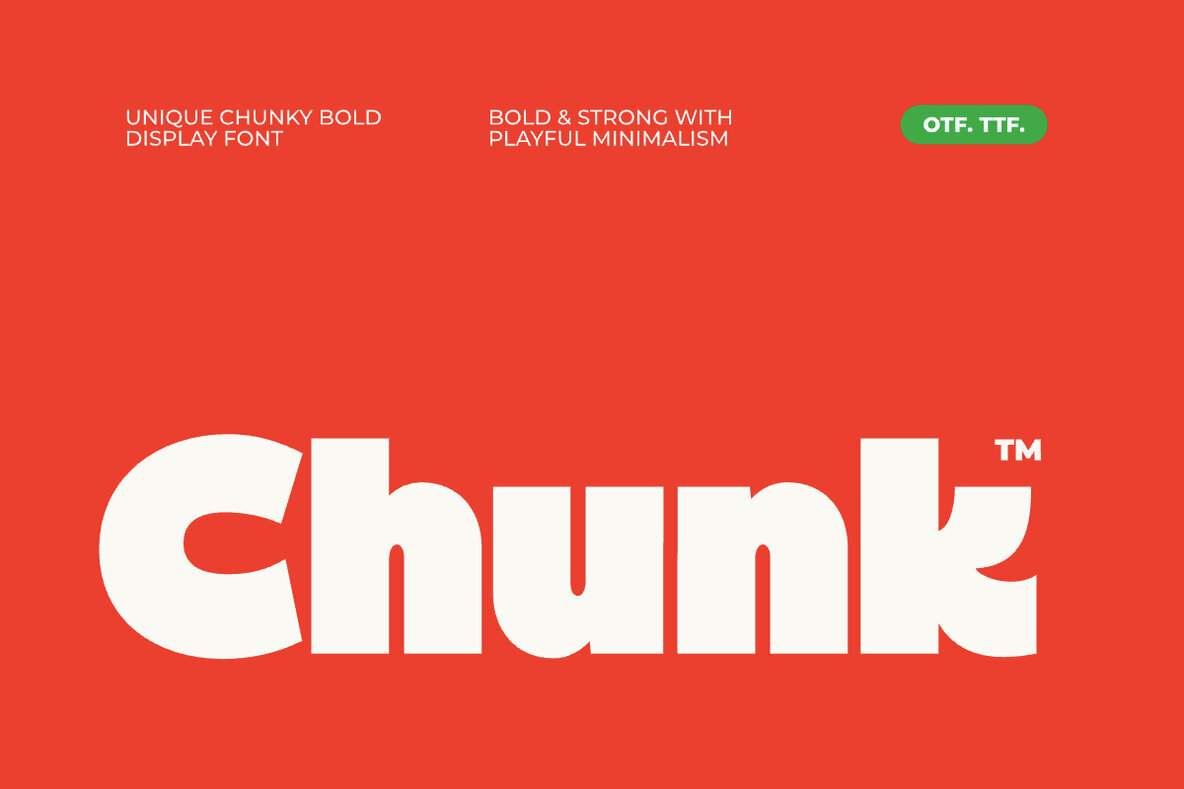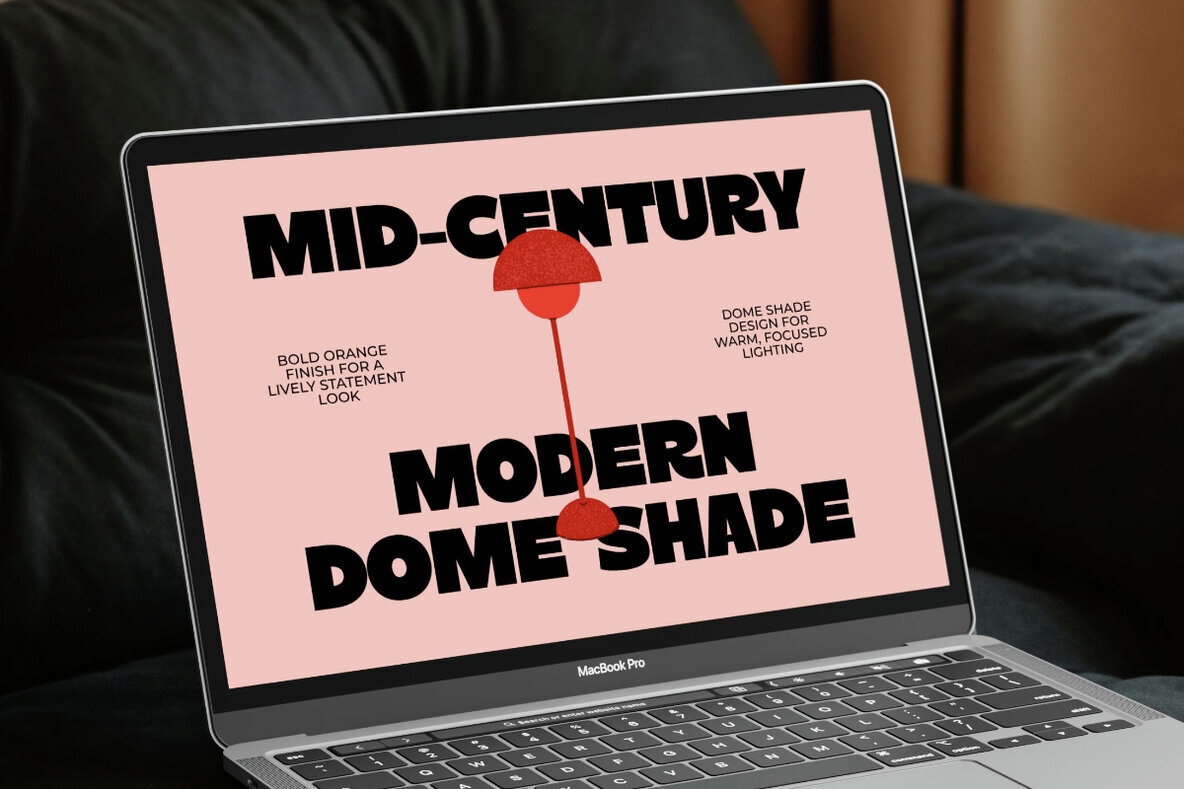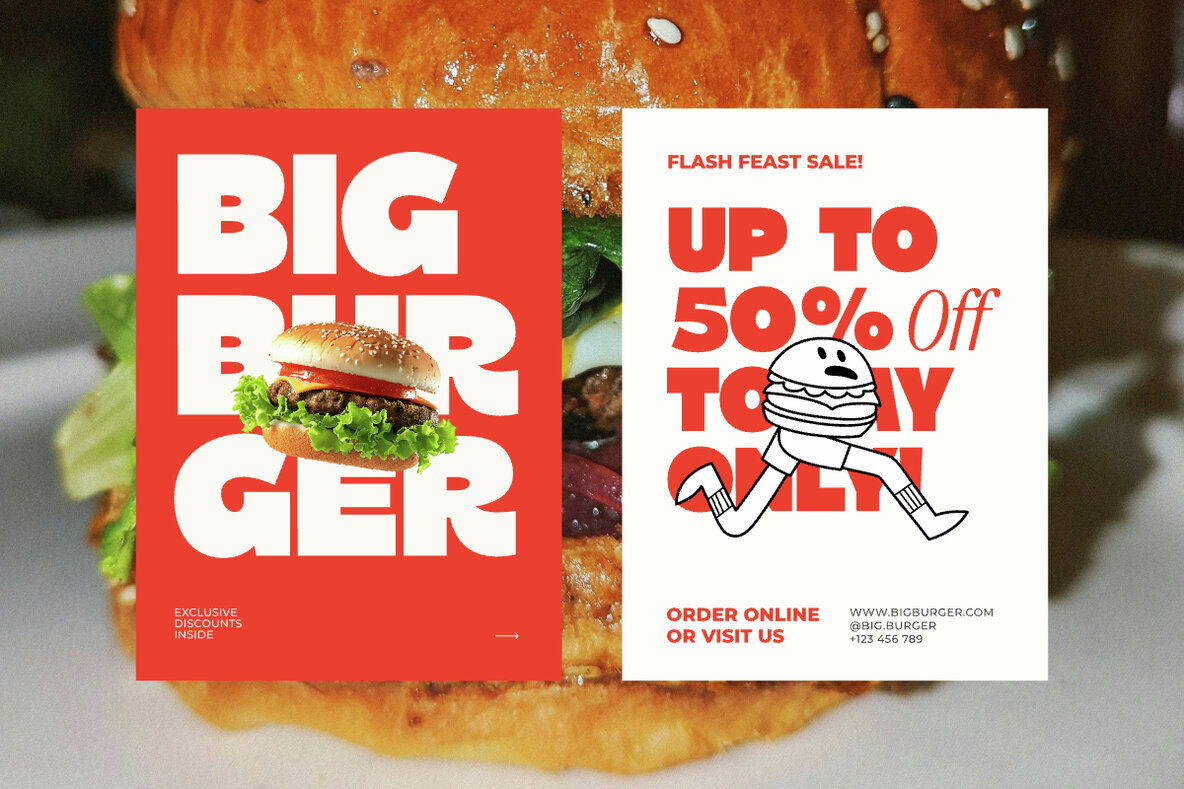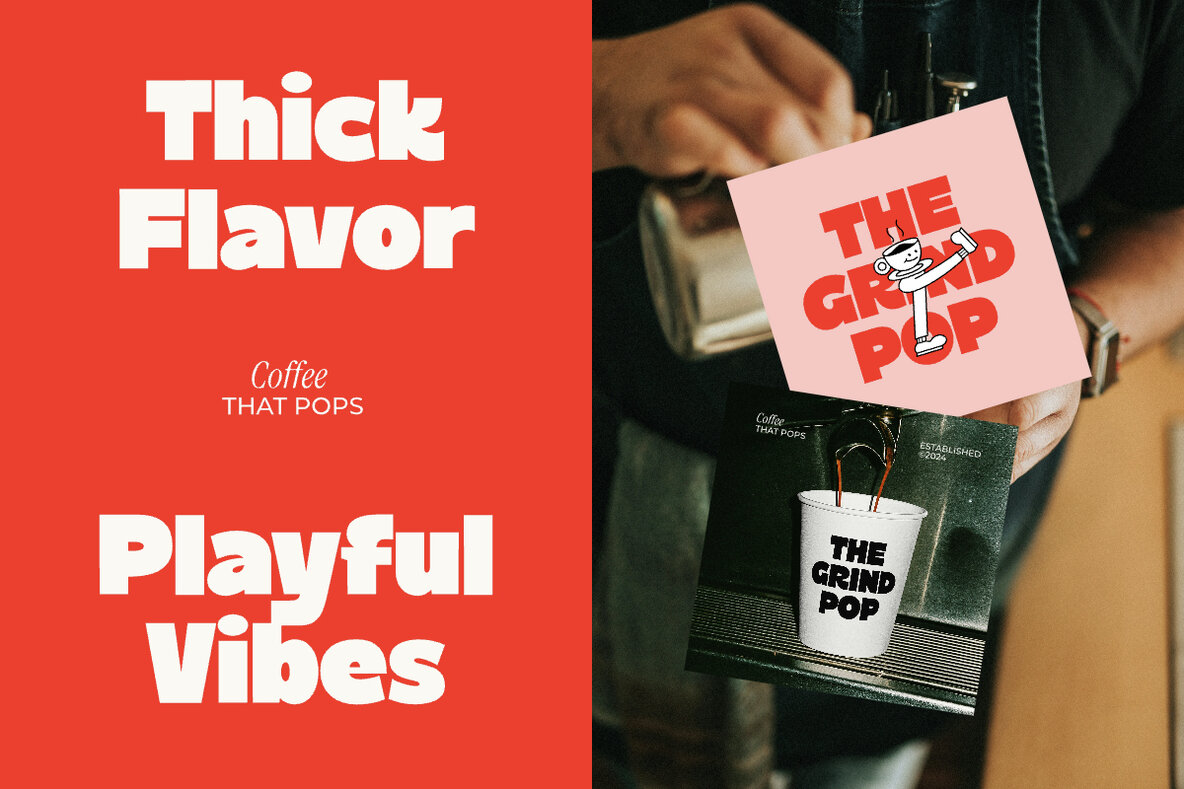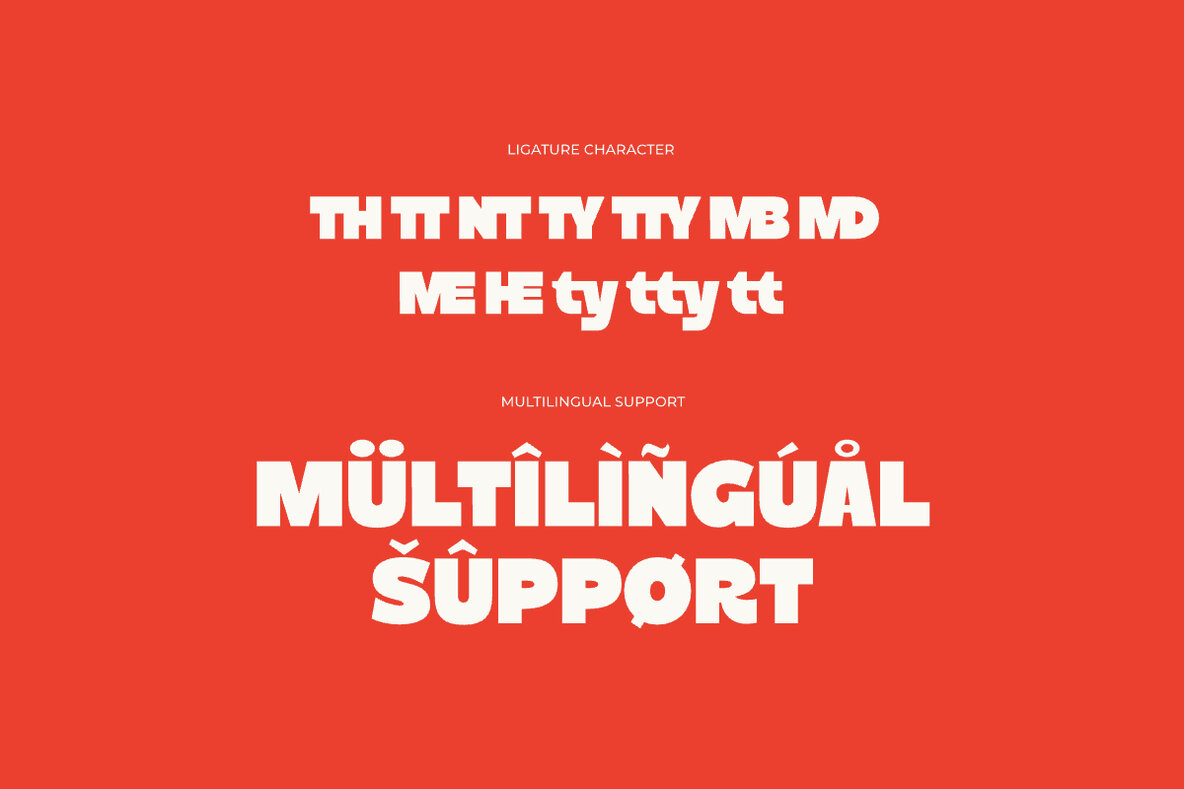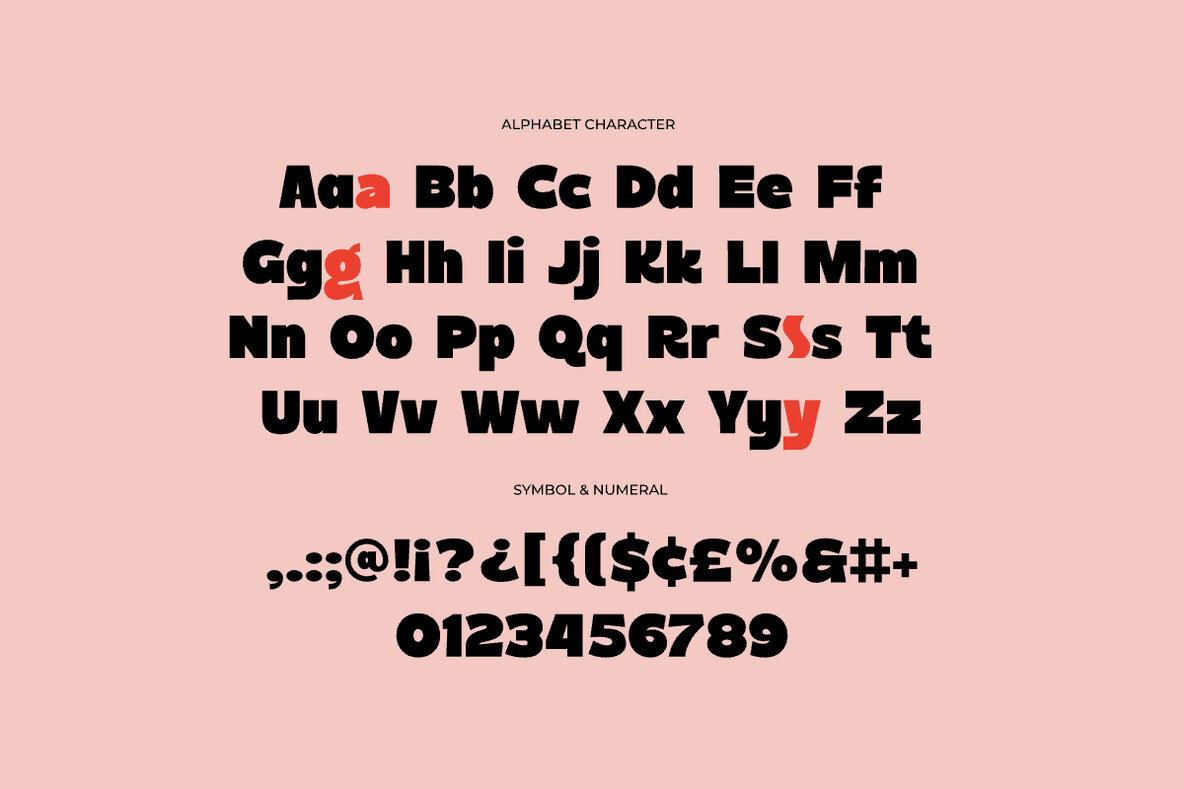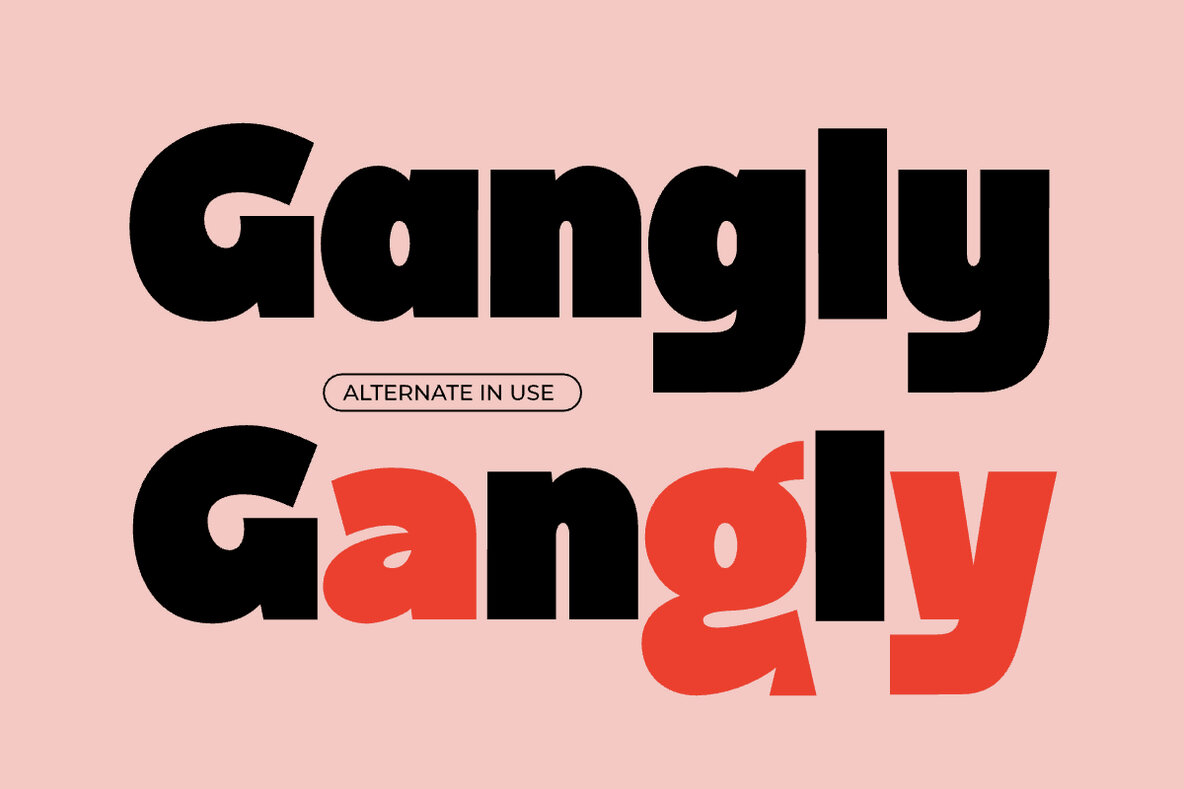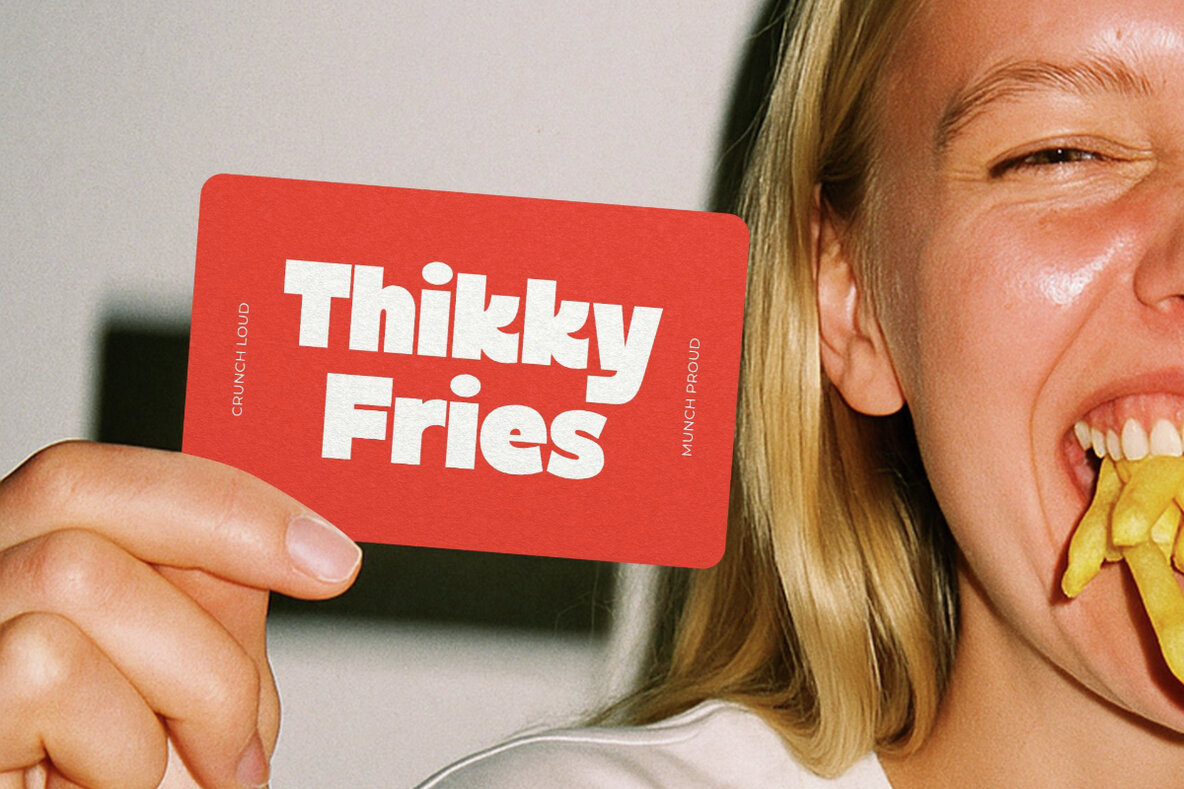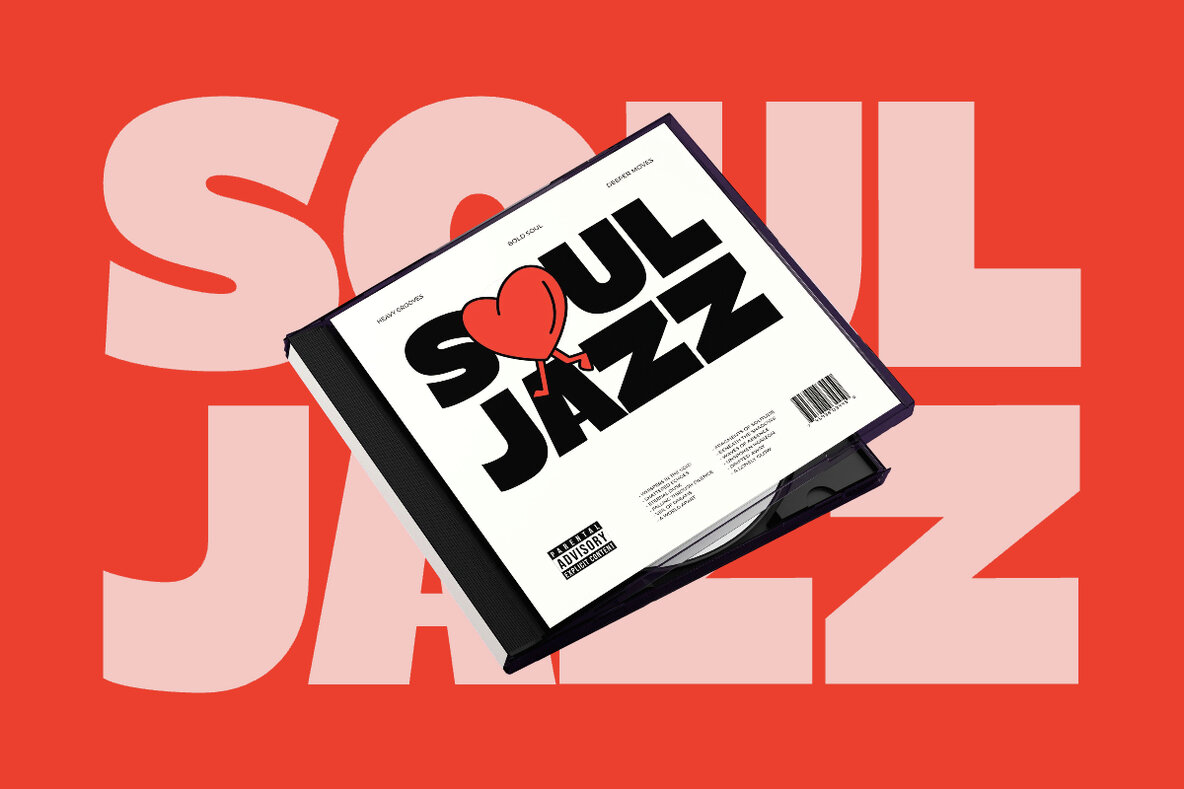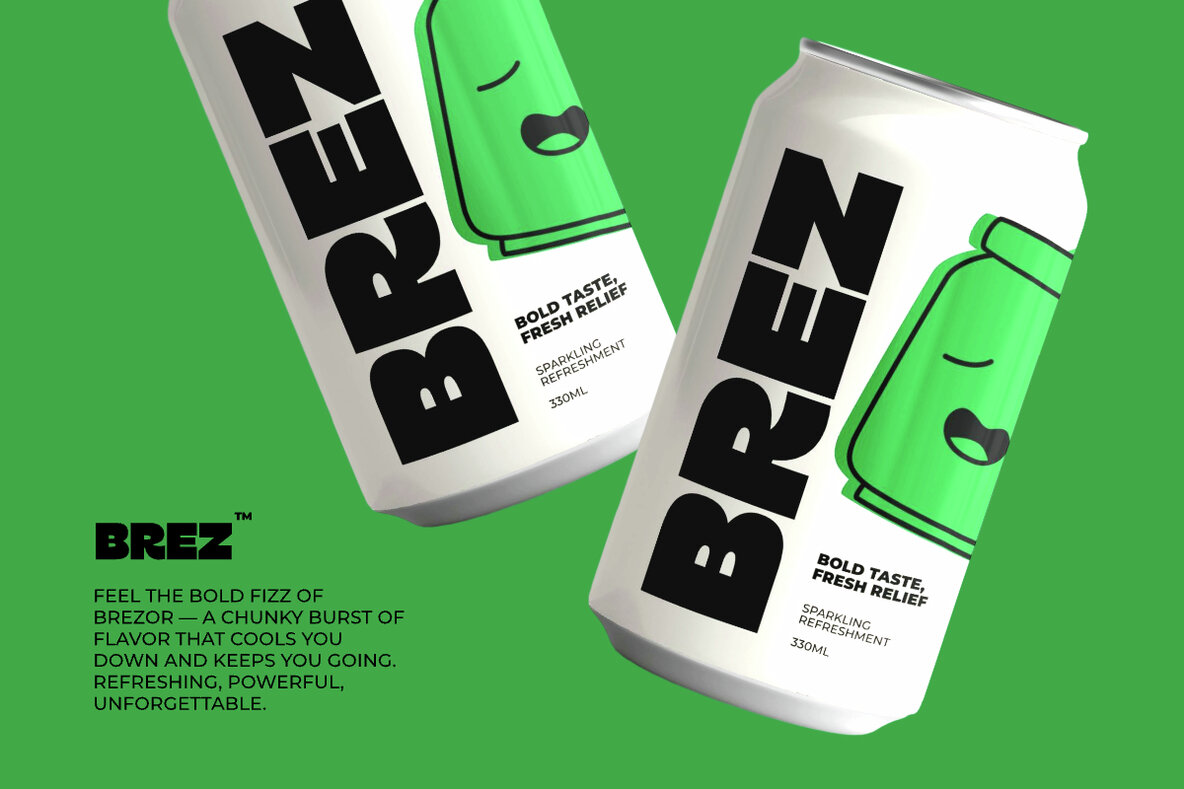
Chunk: Bold Typeface for Modern Creativity
Chunk is a distinctive display font crafted for making bold statements. Ideal for logos, posters, headlines, and social media graphics, this font caters to a variety of branding projects. Its unique design ensures your work stands out in any context.
• Ligatures – Enhance typographic style.
• Symbols and Numerals – Comprehensive character support.
• Multilingual Support – Versatile use across languages.